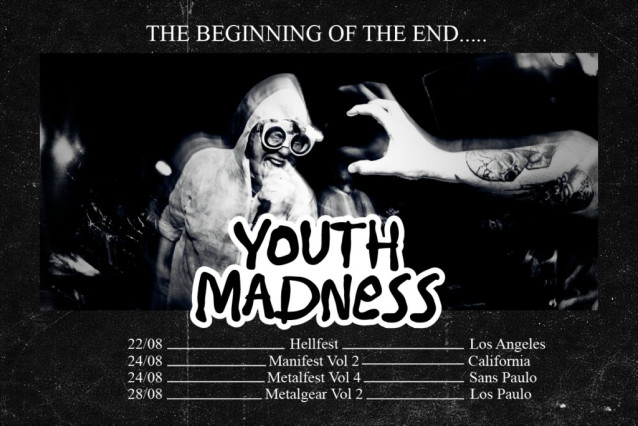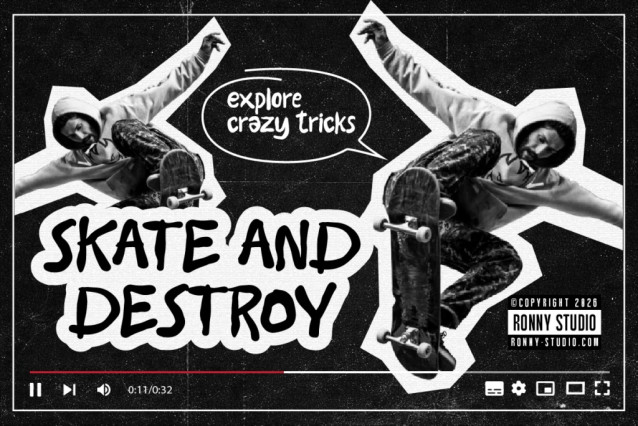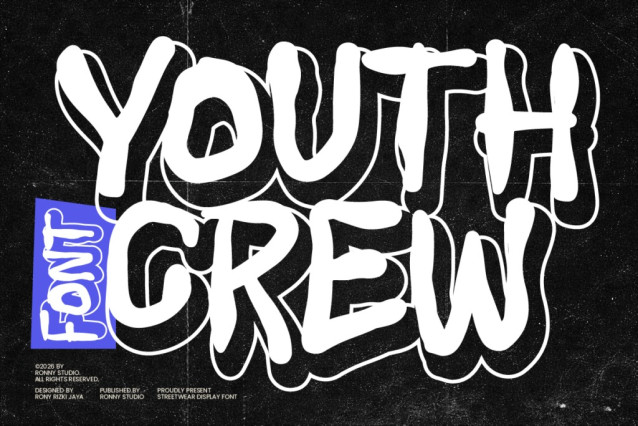
Youth Crew Font
Youth Crew Font a bold graffiti street display font inspired by skate culture, hip-hop aesthetics, DIY zines, and rebellious youth spirit. Every letter is hand-drawn with expressive strokes and strong attitude, giving your designs an authentic urban street style that instantly grabs attention.
Designed for creators who want their typography to feel loud, energetic, and unapologetically bold, Youth Crew delivers the perfect balance between graffiti culture and modern streetwear design.
Whether you’re working on streetwear branding, music artwork, poster design, or bold headline typography, this graffiti street font adds a powerful visual impact that stands out in any project.